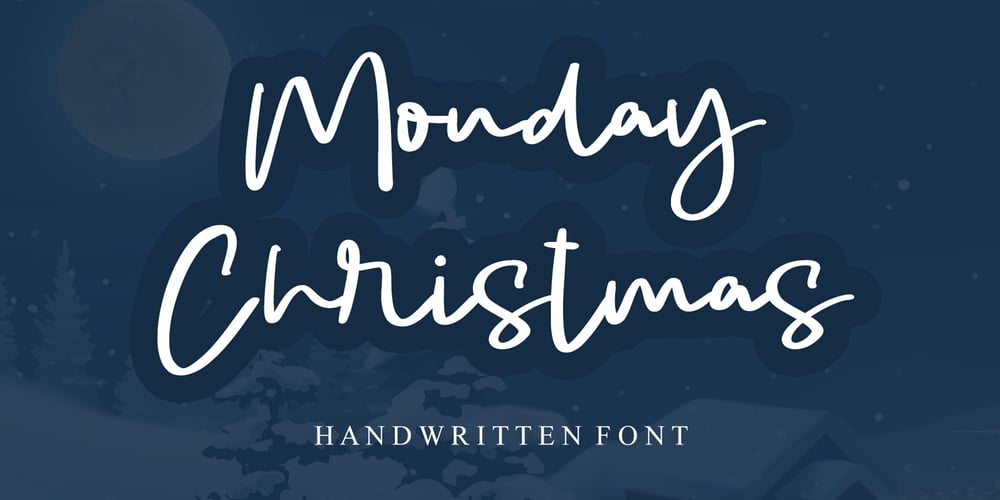
Monday Christmas Font Family was designed by Ahmad Afandi and published by Letterafandi Studio. Monday Christmas contains 2 styles and family package options. Angela Christmas is a simple and quirky handwritten font. You can use for logos, branding, invitations, stationery, wedding designs, social media posts, and much more!